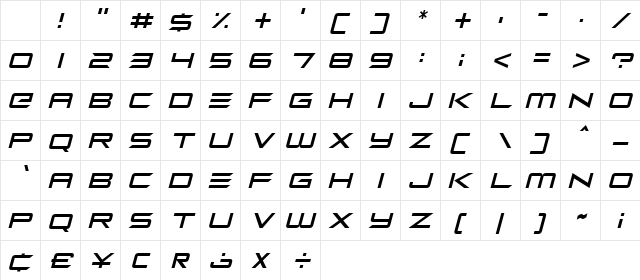
Zen Os is a composed and adaptable typeface that performs quietly and consistently across a wide range of design contexts. The slanted form adds forward momentum and visual energy.
Pro Tip: Use Zen Os for emphasis, pull quotes, and subheadings where its slanted energy can add rhythm to the layout.